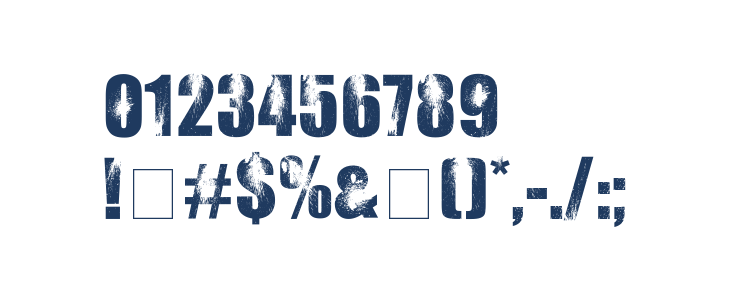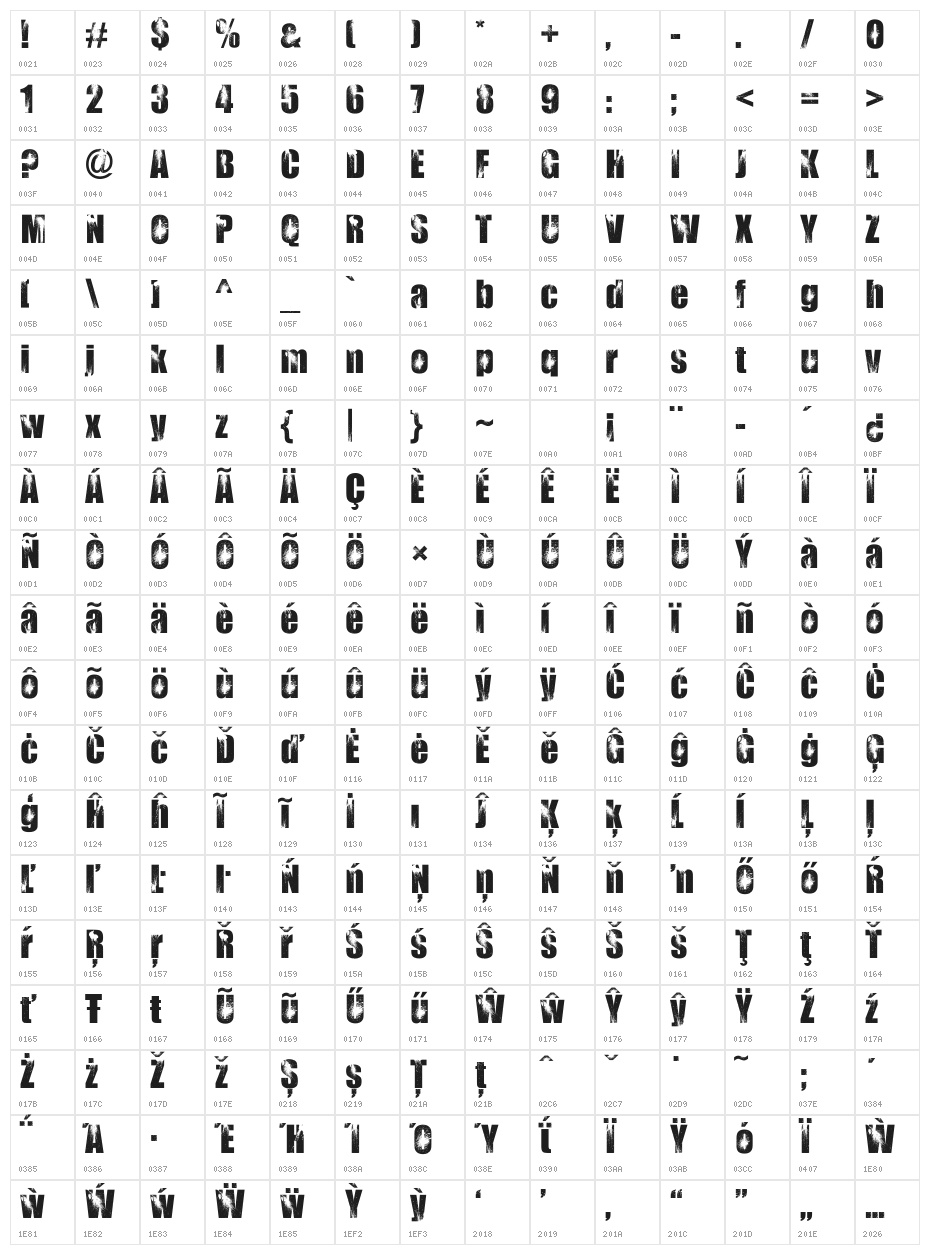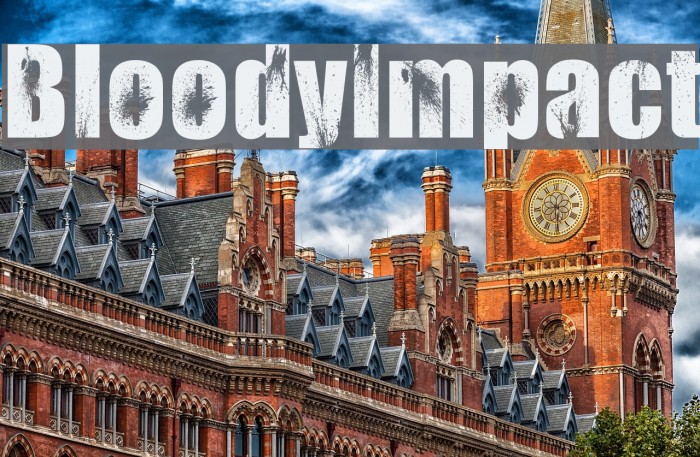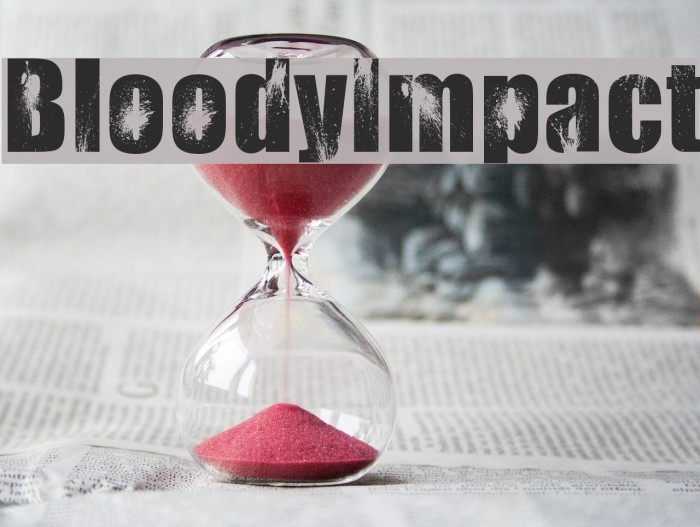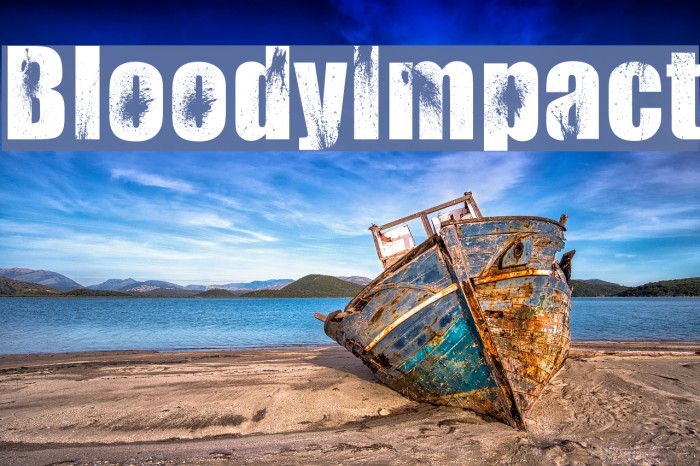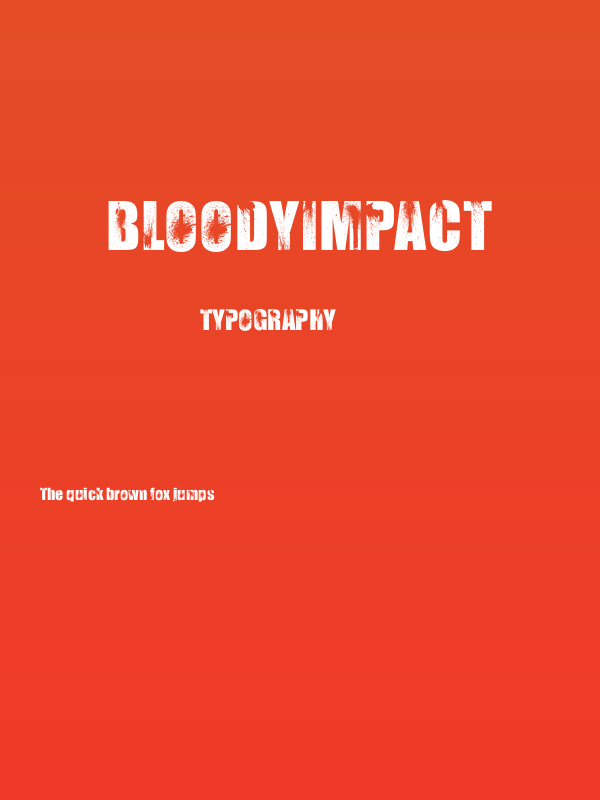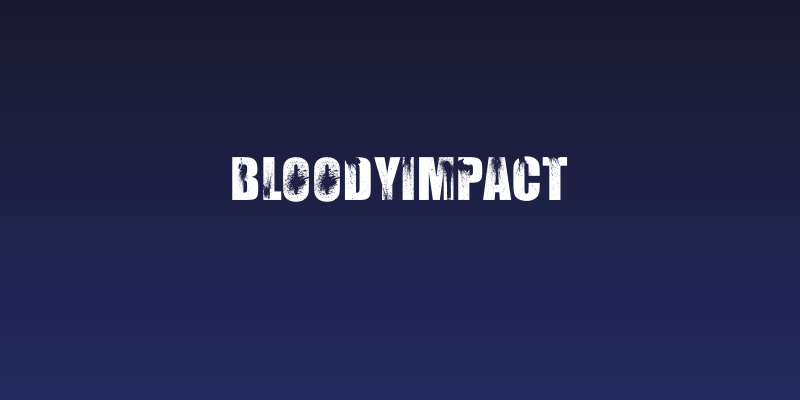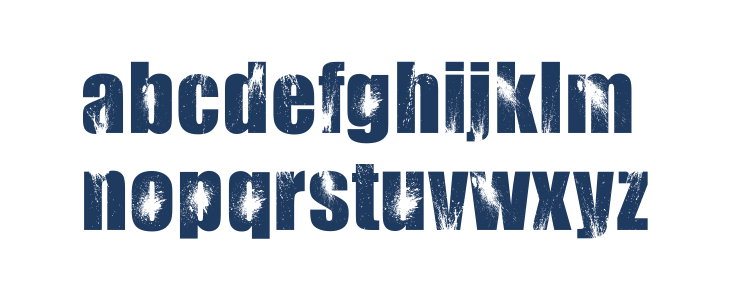
BloodyImpact Font
BloodyImpact Description
This font features a bold and distressed style, with a gritty, textured appearance that gives it a rugged and impactful look. The letters are thick and heavy, with a rough, weathered texture that suggests wear and tear, making it ideal for designs that require a strong, edgy aesthetic. The uppercase and lowercase letters maintain a consistent weight, while the numbers and special characters follow the same distressed pattern, ensuring uniformity across all elements. The font's boldness and texture make it stand out, capturing attention with its dramatic and raw style.
Proposed ProjectsIdeal for posters, album covers, horror-themed designs, and any project needing a strong, edgy aesthetic.